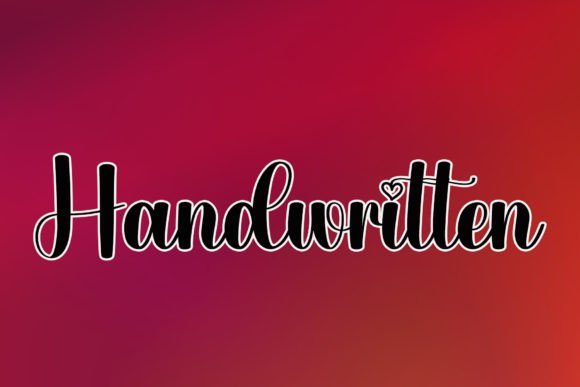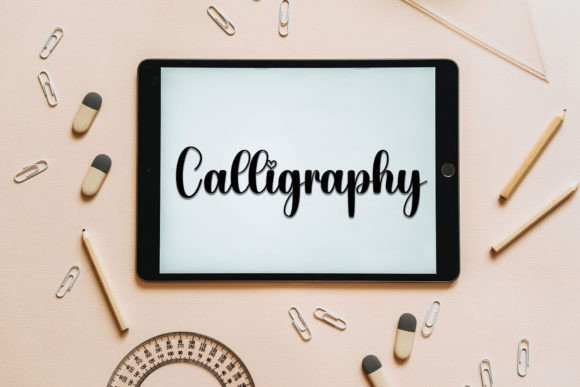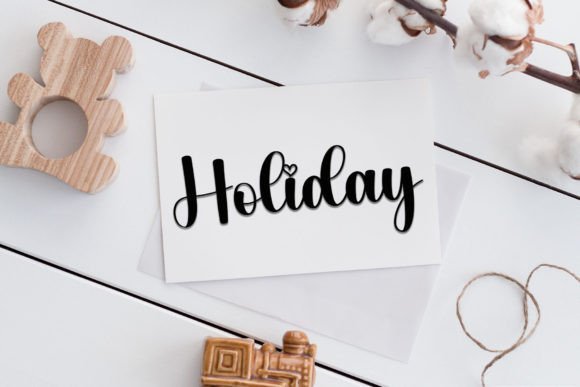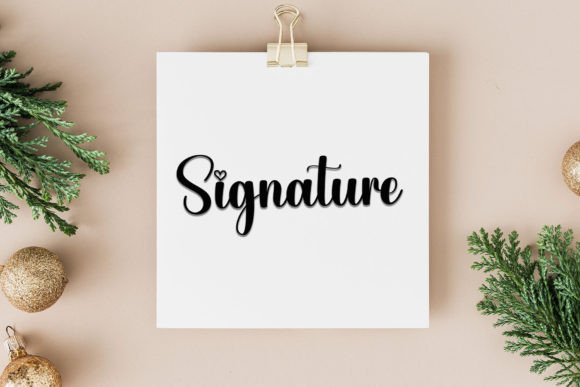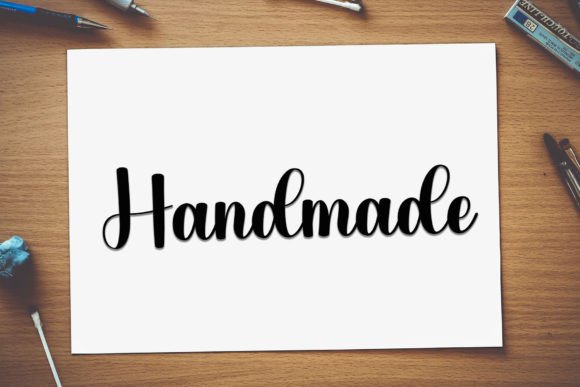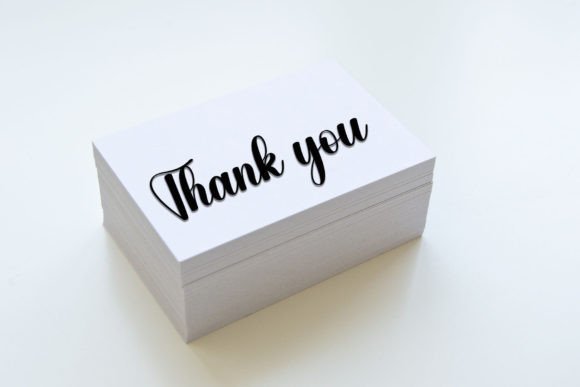
The Bedroom Font: A Timeless, Handwritten Beauty for Your Designs
Have you ever been in the middle of a design project, and suddenly, you’re stuck on finding the perfect font? I recall a recent experience where a client requested a custom wedding invitation design, and I was struggling to find a font that captured the elegance and romance of the occasion. That’s when I discovered the Bedroom font – a neat and beautiful handwritten font that added an elegant touch to my design, making it truly unforgettable.
A Personal Review: What I Love About Bedroom Font
The Bedroom font has quickly become one of my go-to fonts for various design projects. Here’s what I love about it:
- ✨ Elegant and Timeless Style: The font’s classic, handwritten look is incredibly distinct and timeless, making it perfect for designs that require a touch of sophistication.
- ✅ Versatility: Bedroom font can be used for a wide range of projects, from wedding invitations and branding materials to social media graphics and blog posts.
- 💫 Readability: The font is clear and easy to read, even at smaller sizes, making it ideal for body text and captions.
While the Bedroom font is exceptional, there are a few minor quirks to be aware of:
- 🤔 Limited Availability of Glyphs: The font may not have an extensive range of glyphs or special characters, which could limit its use in certain projects.
- ⚠️ Not Suitable for All Design Styles: The elegant, handwritten nature of the font may not be suitable for designs that require a bold, edgy, or modern look.
The Story Behind Bedroom Font
The Bedroom font was designed with the intention of creating a beautiful, elegant handwritten font that captures the essence of timeless style. While the actual designer is unknown, it’s clear that the font was crafted with love and attention to detail, making it a treasured find for designers and crafters alike.
| Font Name | Bedroom Font |
| What type of projects is Bedroom font best suited for? | Bedroom font is perfect for designs that require an elegant, timeless touch, such as wedding invitations, branding materials, and social media graphics. |
| Is Bedroom font suitable for body text? | Yes, Bedroom font is clear and easy to read, making it suitable for body text and captions. |